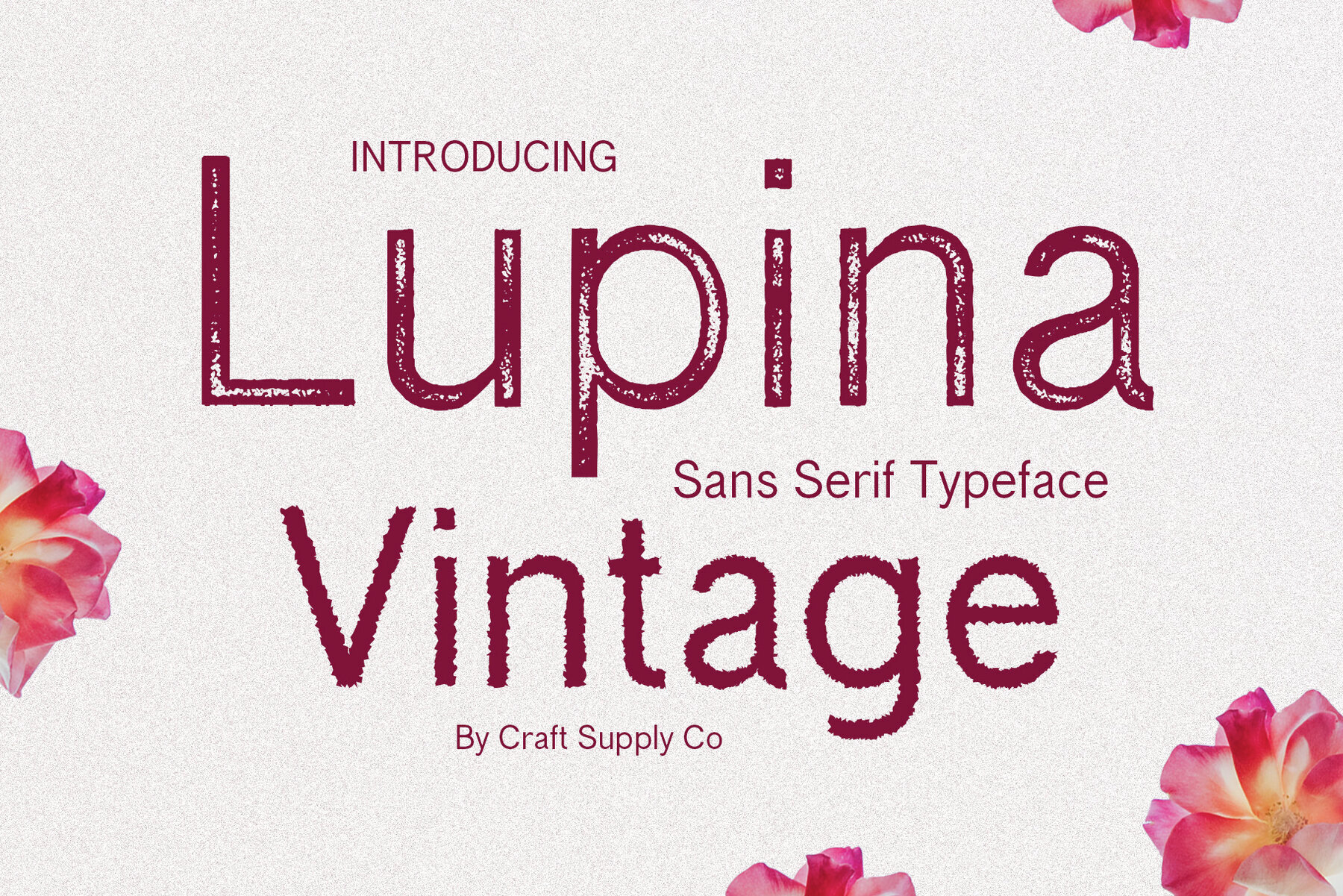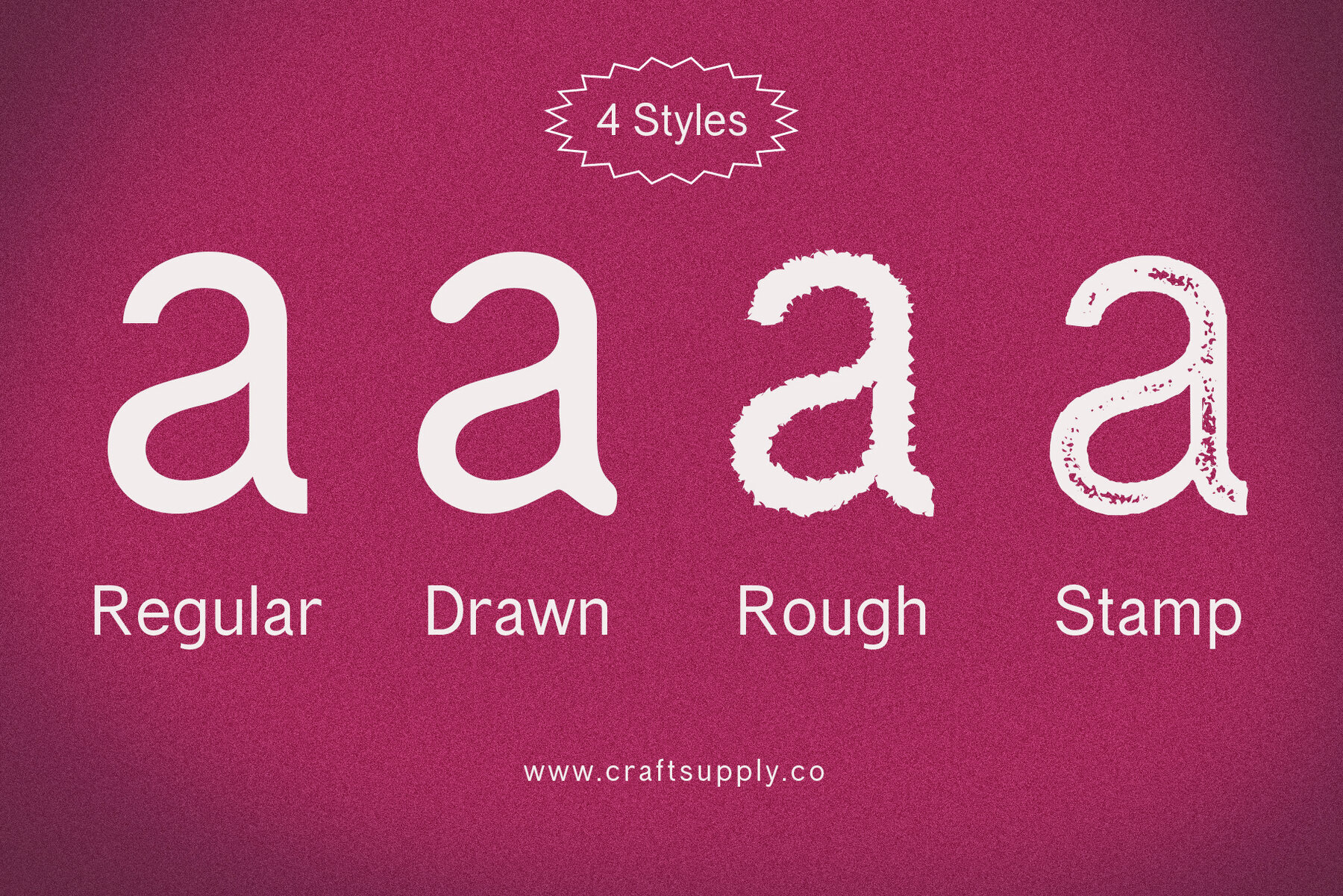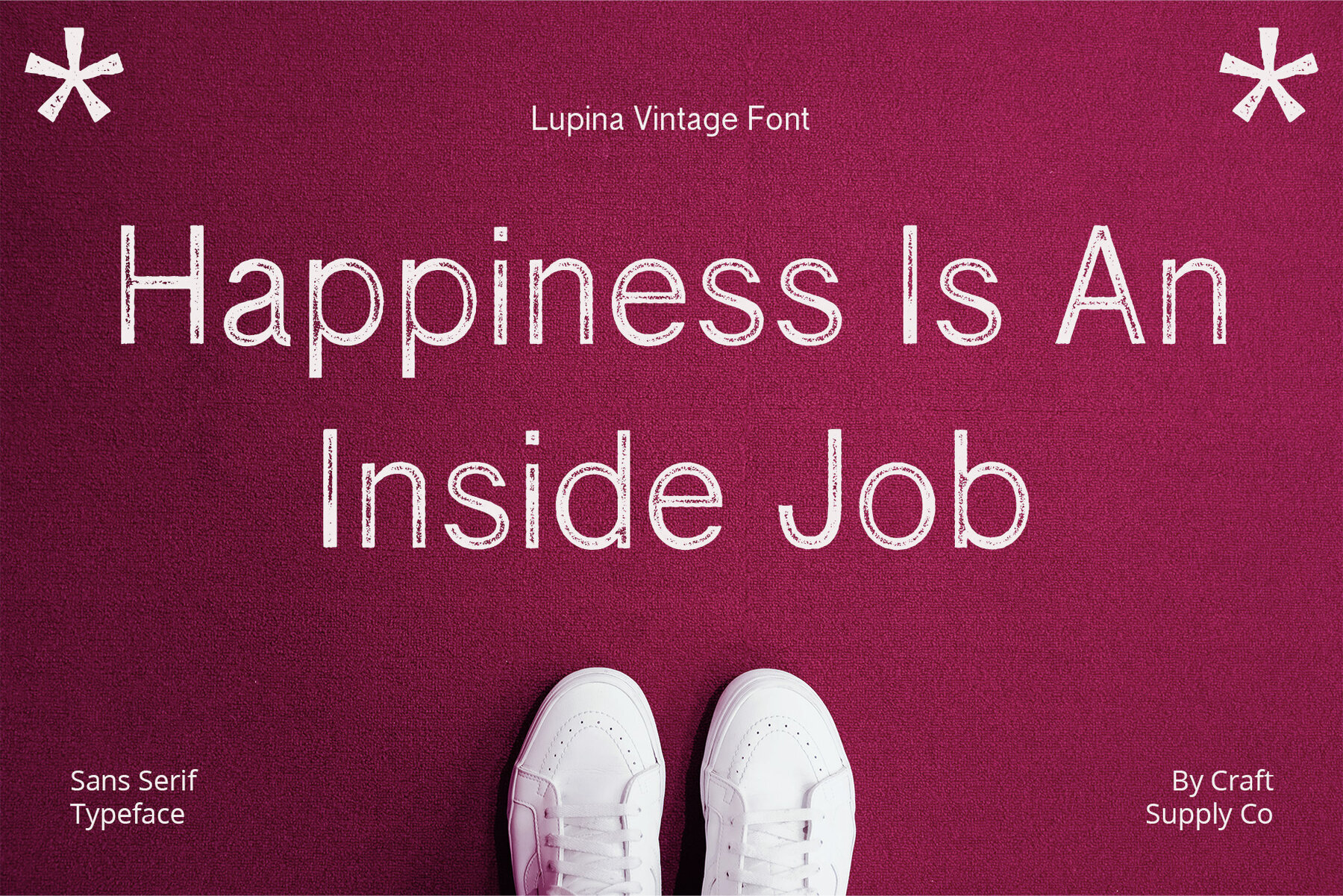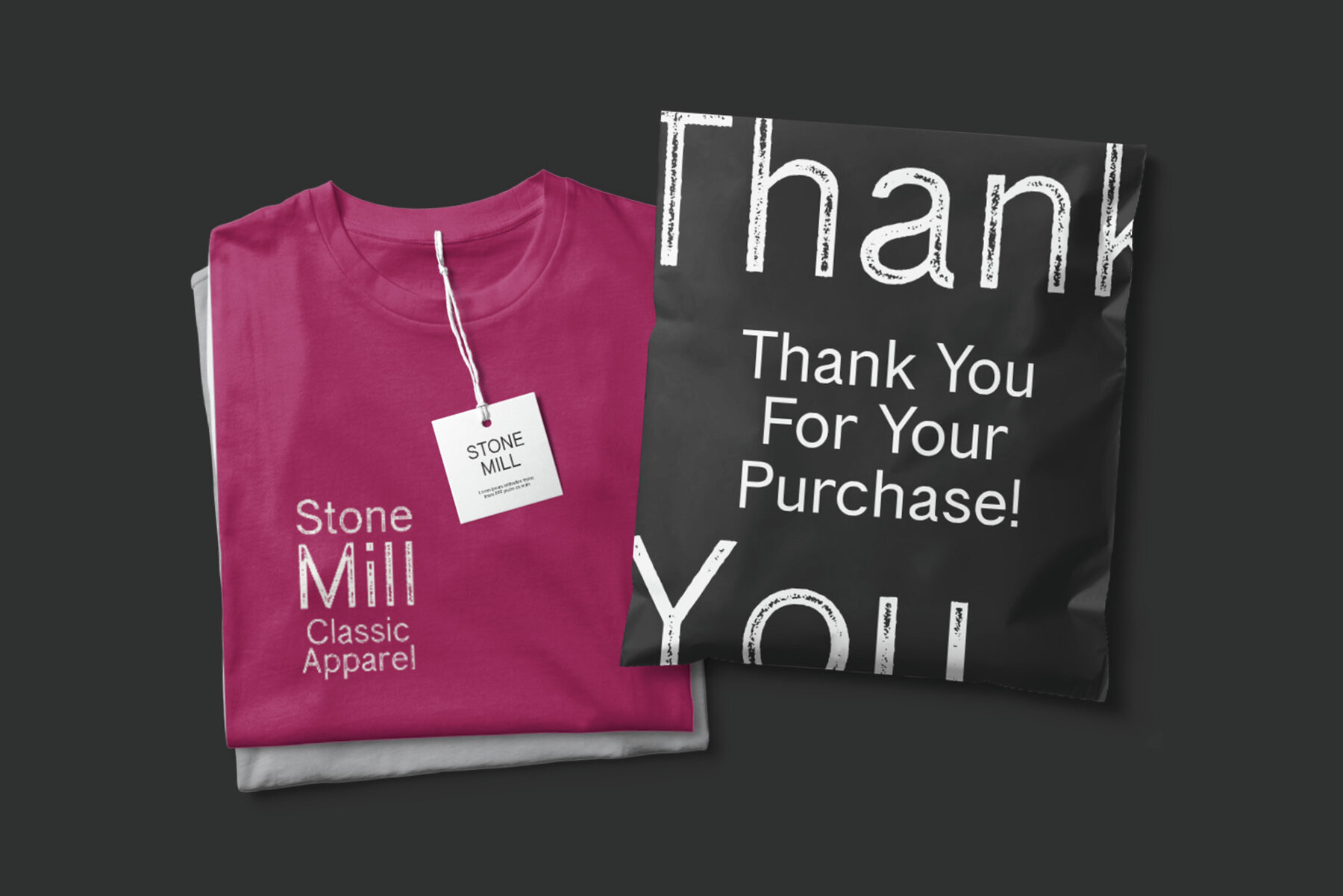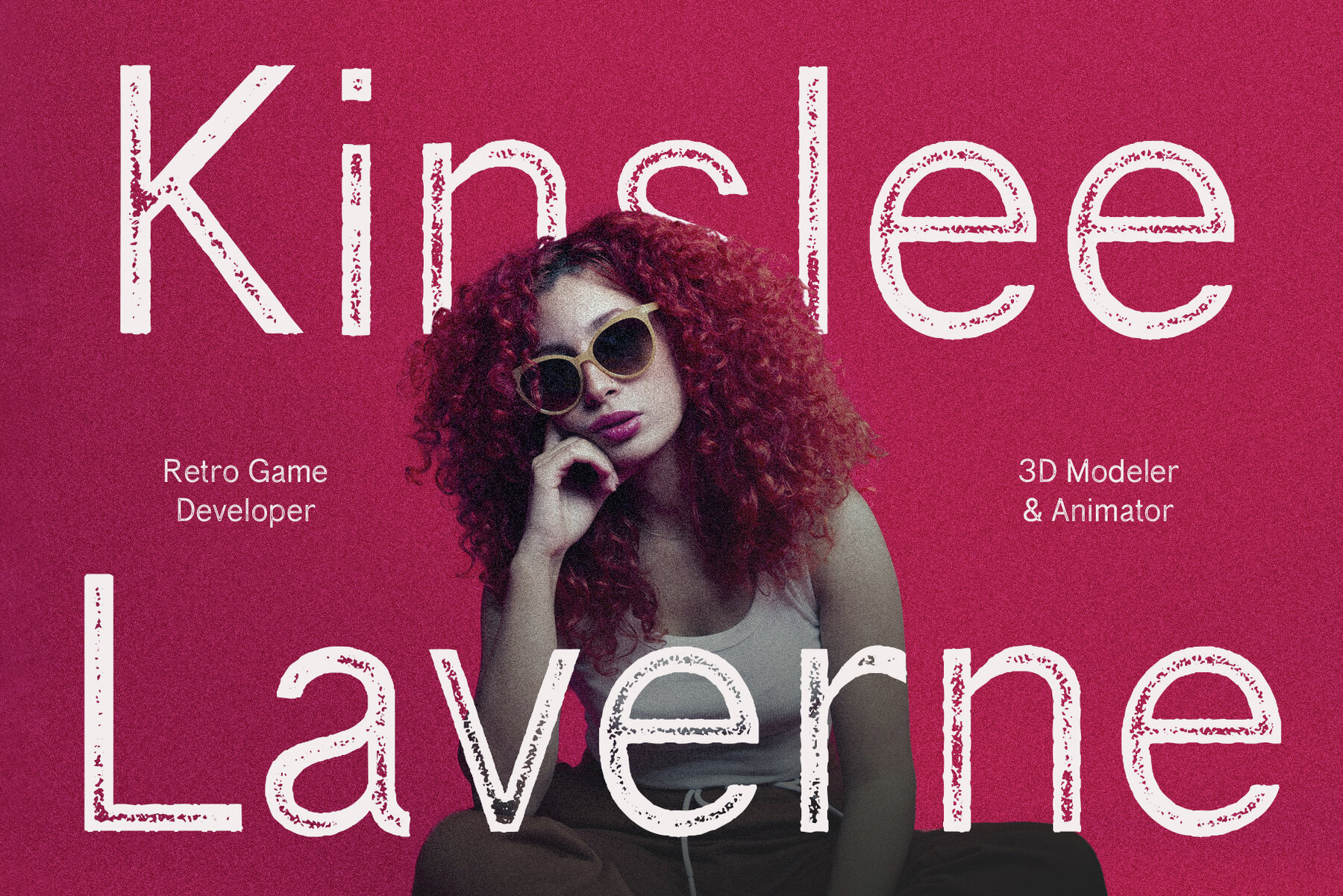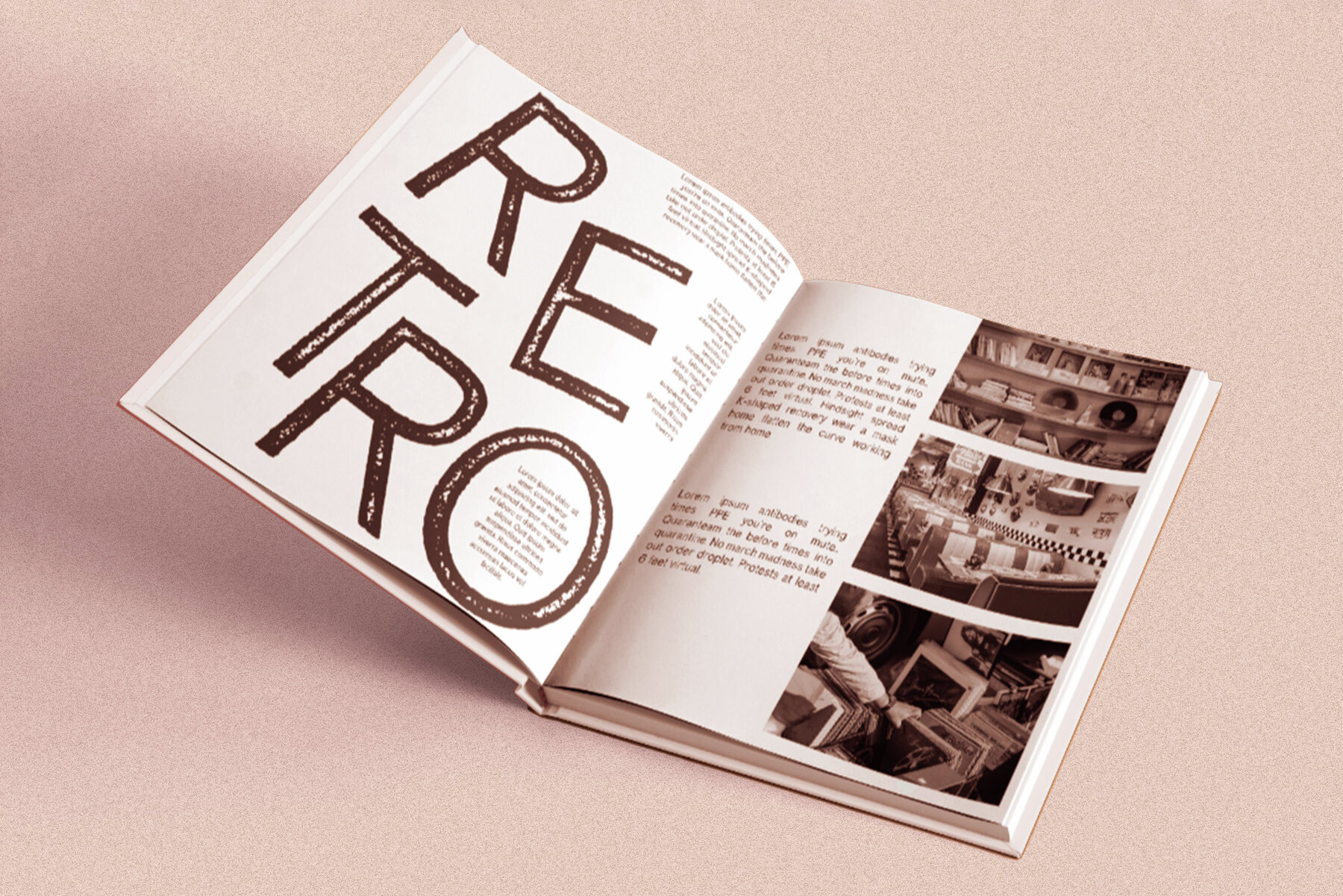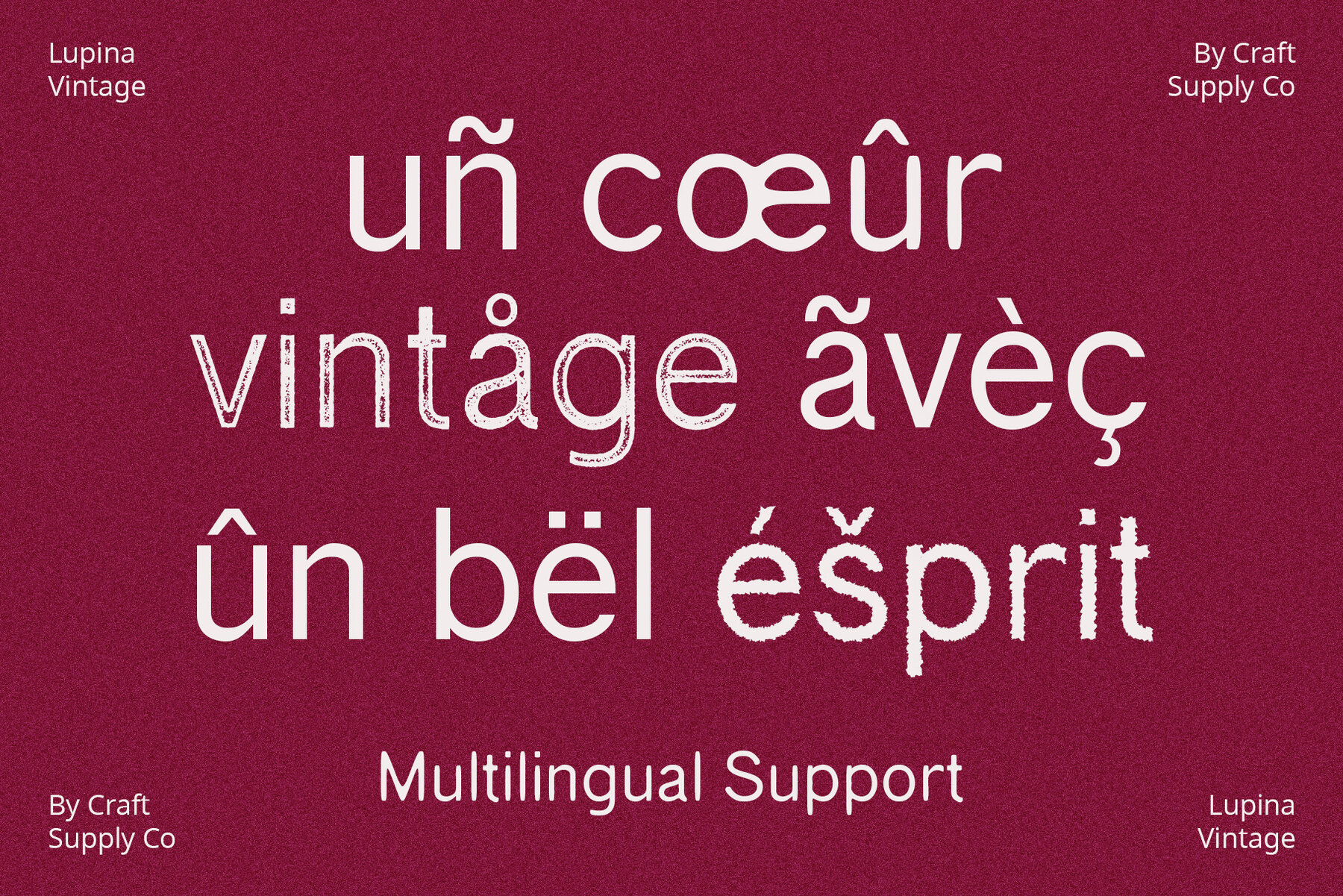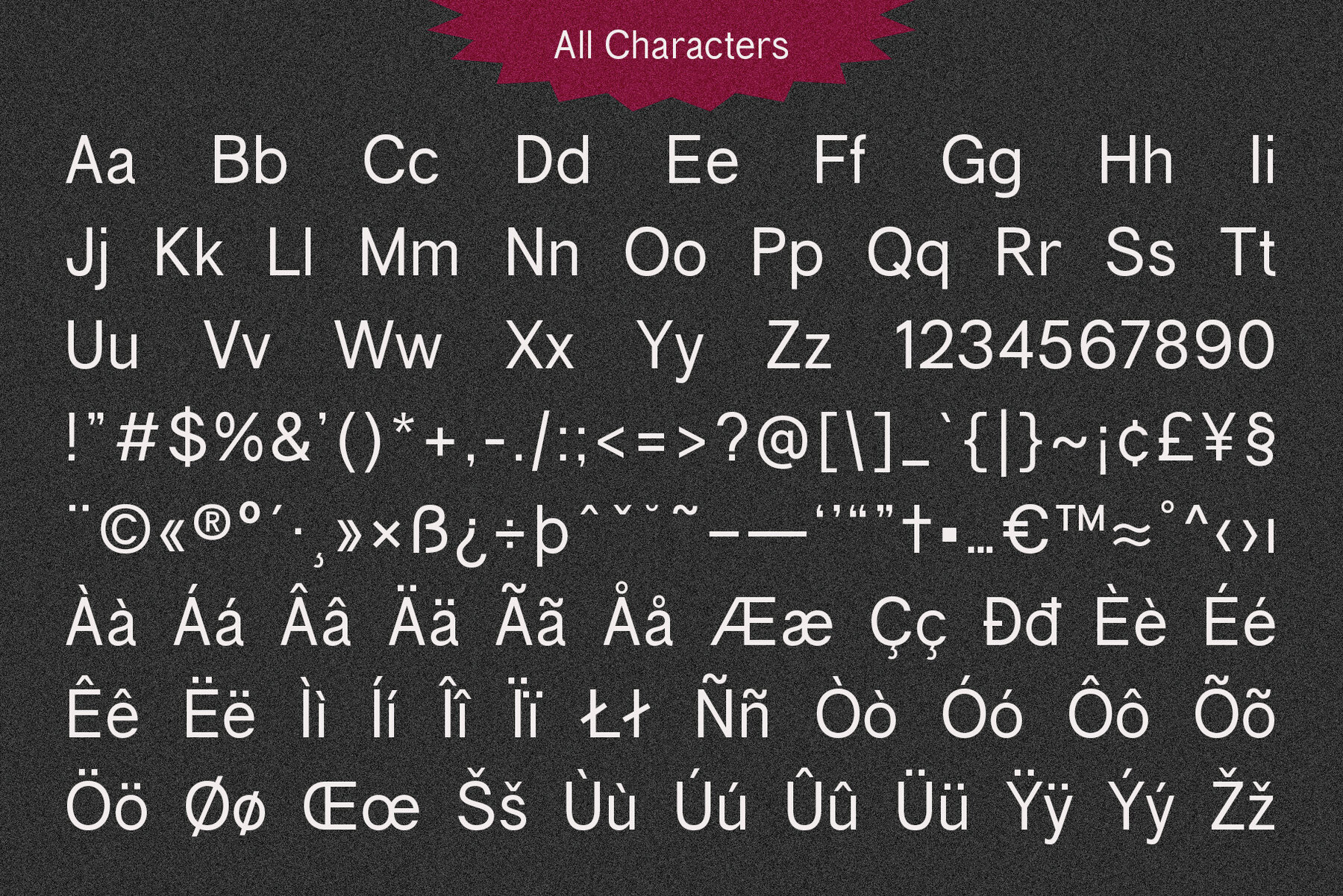
Lupina Vintage Font
Lupina Vintage by Craft Supply Co. is a sans serif font that brings a timeless retro charm to your design projects. With its classic letterforms, it evokes a sense of nostalgia, transporting your audience back in time. Lupina Vintage is the perfect choice for infusing your creations with vintage charm, authentic stamp styles, rough textures, and hand-drawn appeal. Whether designing posters, logos, or social media graphics, it brings a touch of nostalgia and uniqueness to every project. Included Styles: No specialized software needed to use this typeface. For inquiries or assistance, please feel free to reach out. Thank you for choosing Lupina Vintage to enhance your creative projects!Lupina Vintage: Nostalgic Sans Serif Font
Comprehensive Features